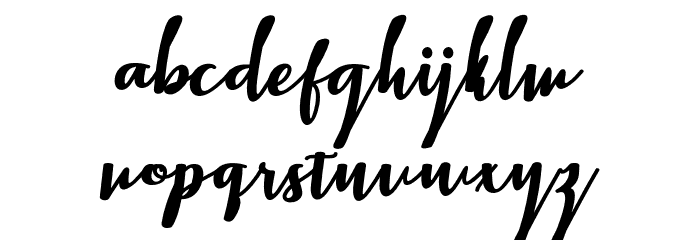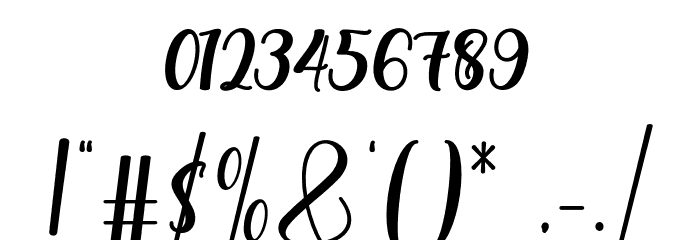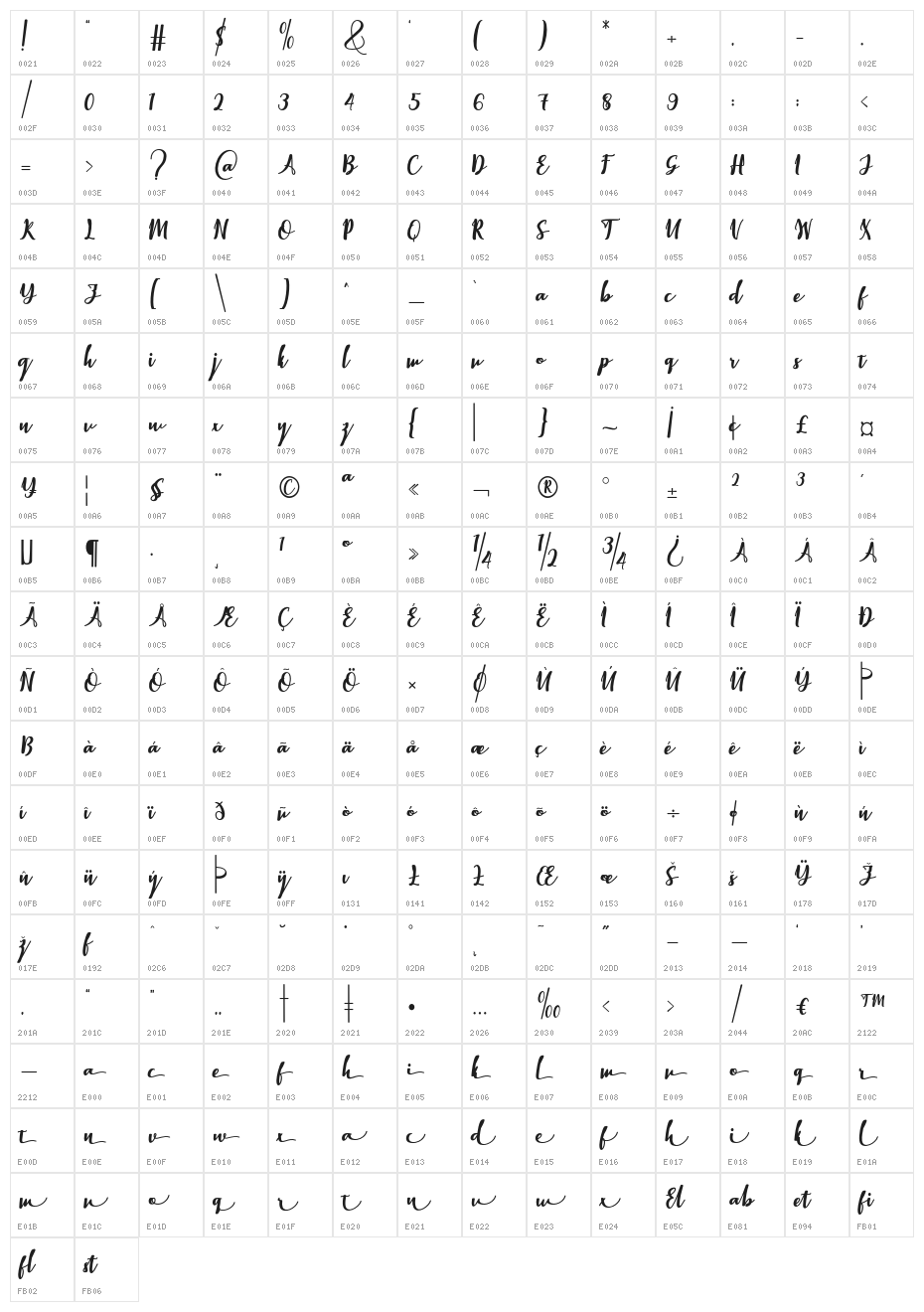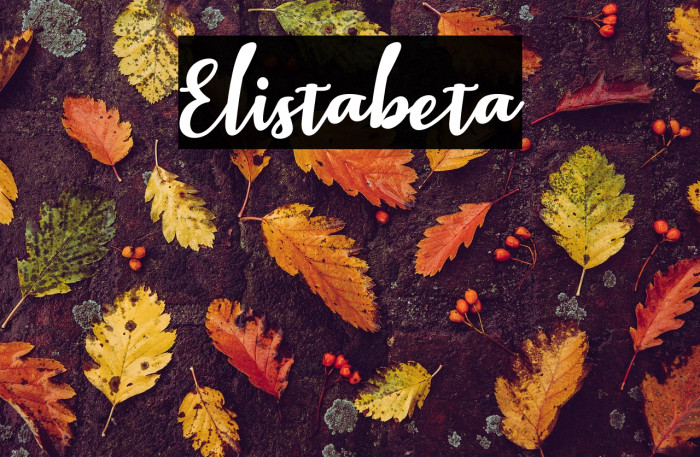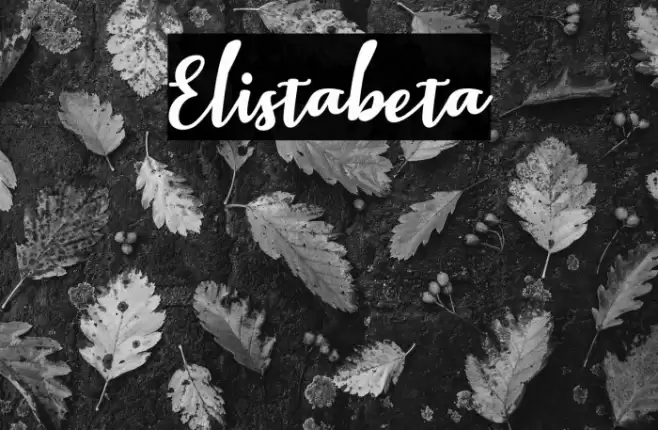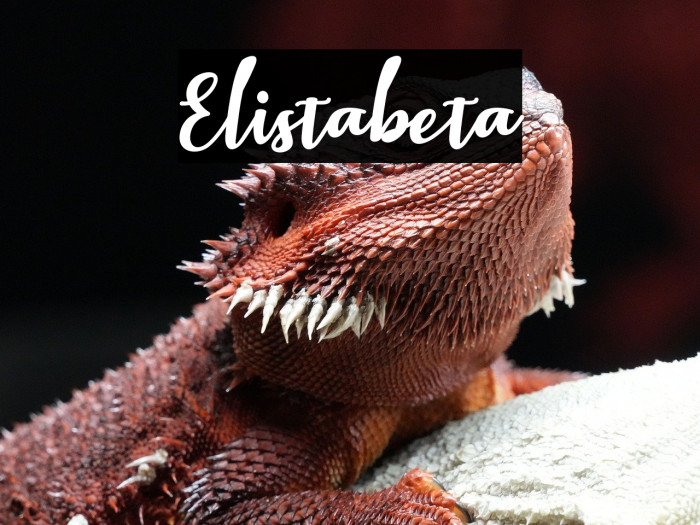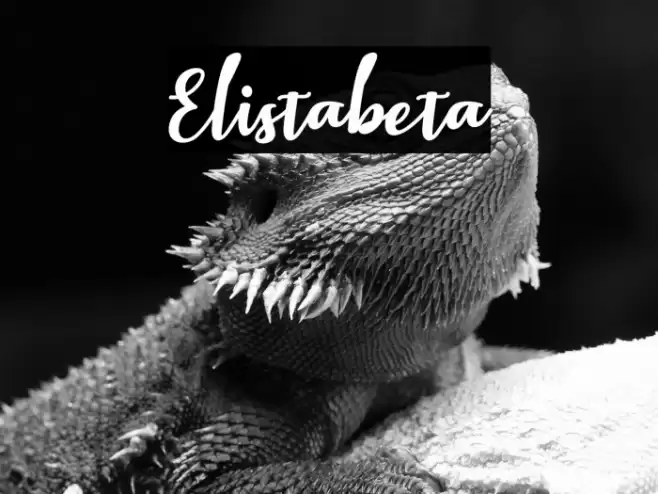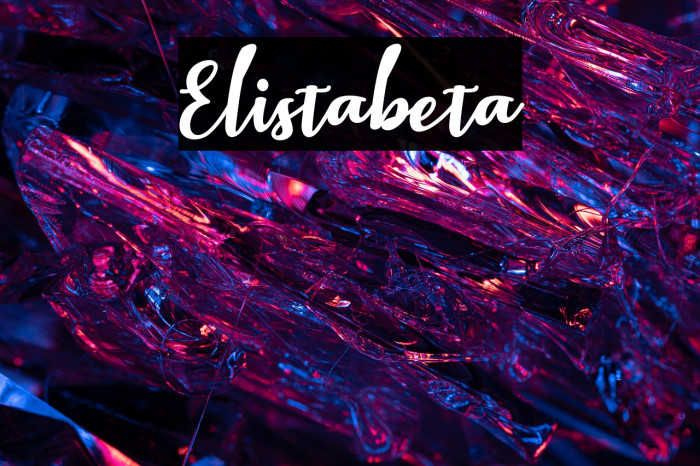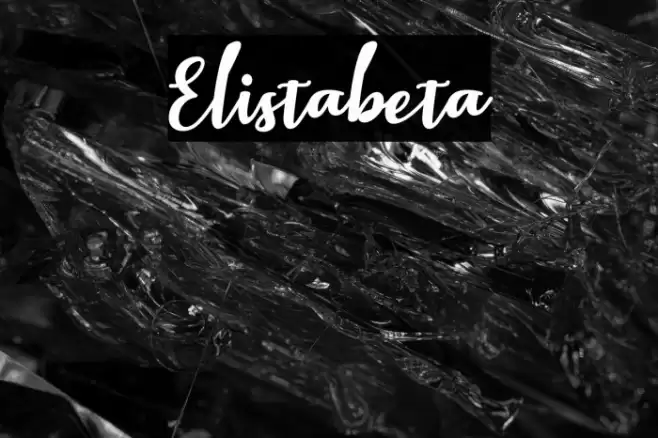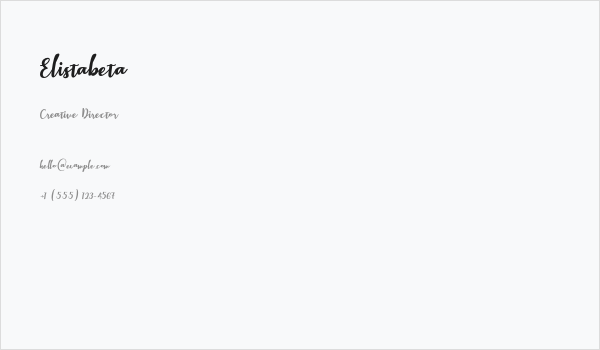
Elistabeta Font
This font exudes a dynamic and elegant script style, characterized by its fluid and connected letterforms. The uppercase letters are bold and sweeping, with a sense of movement that adds a touch of sophistication. The lowercase letters maintain a consistent flow, enhancing readability while preserving the artistic flair. Numbers are clear and distinct, matching the overall aesthetic. Special characters are thoughtfully designed, integrating seamlessly with the rest of the font. The strokes vary in thickness, providing a medium contrast that adds depth and interest. This font is perfect for projects that require a personal and stylish touch.
A dynamic and elegant script font with fluid, connected letterforms.
- Proposed Projects: Ideal for wedding invitations, branding, logos, and elegant packaging design.
- Overall Style: Elegant